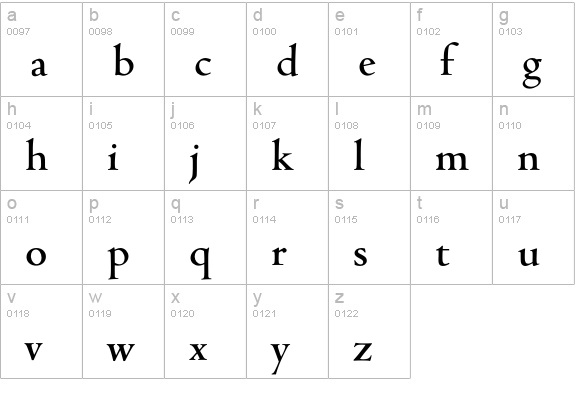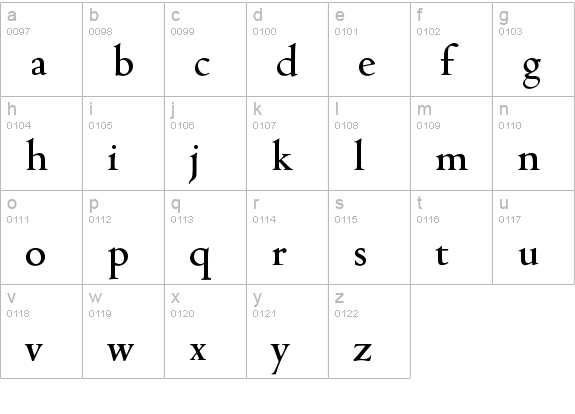
Cambridge-Medium is a balanced, medium-weight variant in the Cambridge typeface family \xE2\x80\x94 well suited to sub-headlines, navigation, and balanced editorial work.
Cambridge-Medium font is a versatile and elegant typeface that exudes sophistication and clarity. With its balanced proportions and clean lines, this font is perfect for a wide range of design projects, from branding to editorial design. The medium weight strikes the perfect balance between boldness and elegance, making it suitable for both headlines and body text. What sets Cambridge-Medium font apart is not only its timeless aesthetic appeal but also the fact that it is available for free download at FontsMarket.com. This means that you can easily enhance your projects with this high-quality typeface without any cost involved. Don't miss the opportunity to add Cambridge-Medium font to your font collection and elevate your designs with its classic charm.